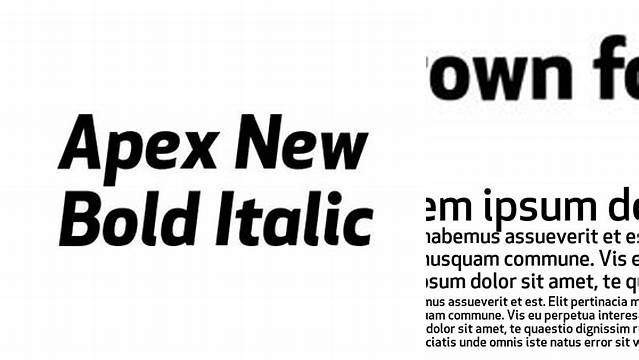
What is the Apex New Bold Font?
So, what exactly is the Apex New Bold font? Well, in simple terms, it's a modern and stylish typeface known for its clean lines and strong presence. It's part of the larger Apex New font family, which includes various weights and styles. The "Bold" version, as the name suggests, is a heavier, more attention-grabbing style, making it perfect for headlines, titles, and any text that needs to stand out. Think of it as the muscle car of fonts - it's built to impress! Apex New Bold is a sans-serif font, meaning it doesn't have the little strokes (serifs) at the ends of the letters. This gives it a contemporary and minimalist feel, making it versatile for various design projects. It's the kind of font that works well whether you're creating a website, designing a logo, or putting together a presentation. It’s a real workhorse in the font world! Apex New Bold font is your go-to choice if you are looking for a strong font with a modern design.
This font is popular among designers, and for good reason! Its versatility allows it to be used in different projects. Because it is very clear and bold, it can capture the viewer's attention immediately. The design of this font is amazing, it is really amazing to use this font and can make your design stand out. Whether you're designing a website, creating marketing materials, or working on a personal project, Apex New Bold can add a touch of professionalism and style. It's a great way to make a statement without being overly flashy. Its clean and modern design makes it suitable for various applications, from digital to print. The boldness of the font ensures that your message is clear and easily readable, even at a distance. This is particularly useful for headlines, titles, and calls to action where you want to grab the viewer's attention immediately. If you are new to font usage, don't worry because using this font is easy. You just need to find a place where you can download it for free, install it and use it. Apex New Bold is not just a font; it is a design tool that can transform how your projects look. The bold design of this font provides a strong statement that will surely attract the audience's attention. Its versatility allows it to fit many design ideas!
Tips and Tricks for Using Apex New Bold Font
Now that you know how to download, install, and use the Apex New Bold font, let's explore some tips and tricks to get the most out of it. Think of these as your secret weapons for using this font effectively. First and foremost, consider your audience. Who are you trying to reach with your design? Is it a formal or informal setting? Apex New Bold works exceptionally well for headings, titles, and any text that needs to grab attention. Be mindful of legibility. While the font is bold and impactful, it's crucial to make sure your text is readable, especially at smaller sizes. Avoid using it for large blocks of body text unless you want to create a very specific effect. Combine it with other fonts. Don't be afraid to pair Apex New Bold with other fonts to create visual interest. Consider using a more lightweight, sans-serif font for body text to provide contrast and improve readability. The possibilities are endless, so don't be afraid to experiment with these ideas. Finally, always test your design. Before you finalize your design, make sure you test it on different devices and screen sizes. This ensures your design looks good no matter where it's viewed. I recommend trying the design with a variety of different backgrounds. By making sure it looks good on different backgrounds, you'll ensure that your design looks consistent across different platforms. The right font choice is very important for a great user experience. A good font helps you attract your audience's attention immediately. By following these tips and tricks, you'll be well on your way to using the Apex New Bold font like a pro.
Best Practices for Using the Font
Let's dive into some best practices to make sure your usage of Apex New Bold is top-notch. Pay attention to spacing and kerning. The spacing between letters (kerning) and words can significantly impact the readability and visual appeal of your text. Adjusting these settings can help you create a more polished and professional look. Kerning can be done on most design software. For best practices, you should also consider contrast. Make sure there's enough contrast between the text and the background to ensure readability. Apex New Bold works well against light or dark backgrounds, depending on your design goals. Think about the overall feel you want to convey. Apex New Bold can give off a modern and bold feel, perfect for making a statement. But remember to be very consistent. Using this font consistently throughout your designs is key to creating a unified and professional look. It will make your audience realize that you are serious and that you have a clear direction for your design. Take your time while you're choosing the font; there are many factors you must consider. By following these best practices, you'll ensure that your designs look amazing and leave a lasting impression. Keep these tips in mind, and you will see improvements in your design.